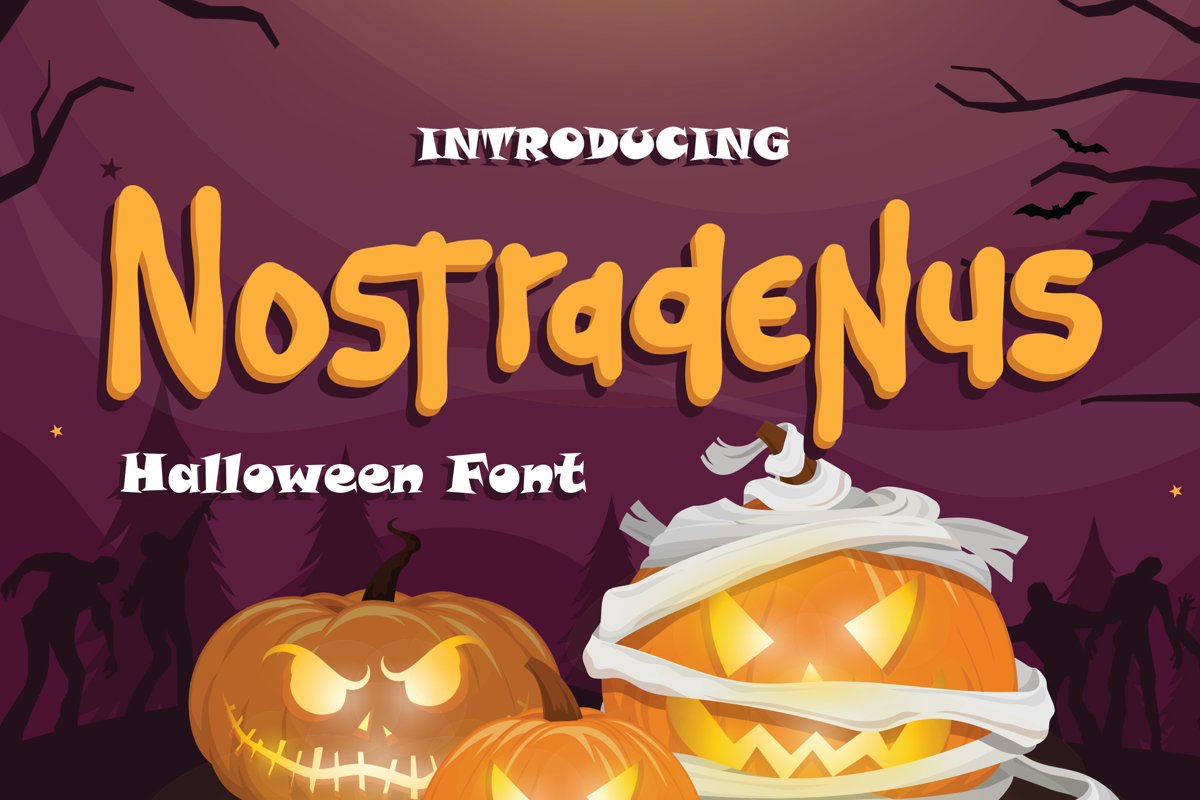
Nostradenus - Halloween Font that contain lowercase, uppercase, symbol, and also support multi language. There’s a lot ligatures in this font. This Font also comes with ligatures, alternates and many more. this font suitable for fashion, branding, catalog and other design what you want.